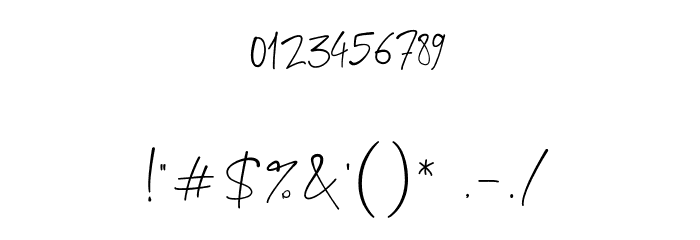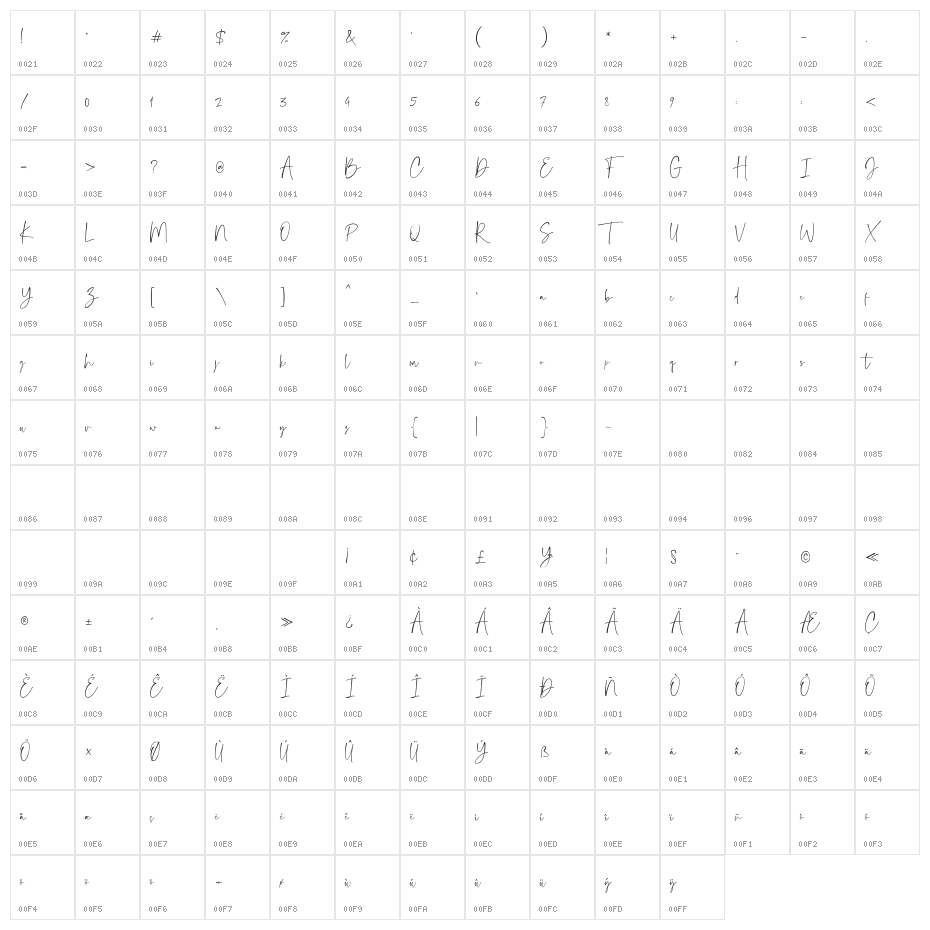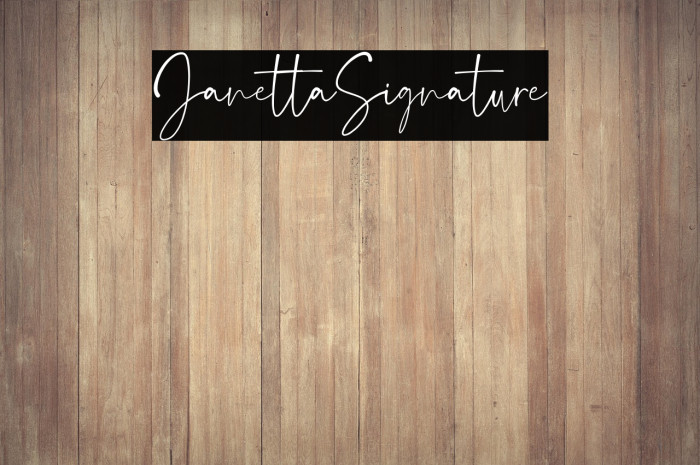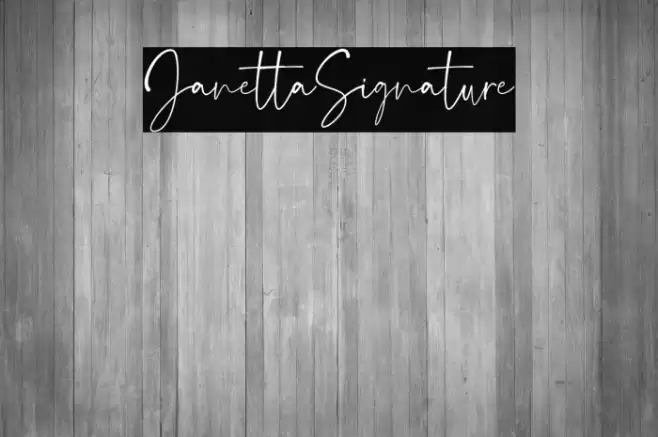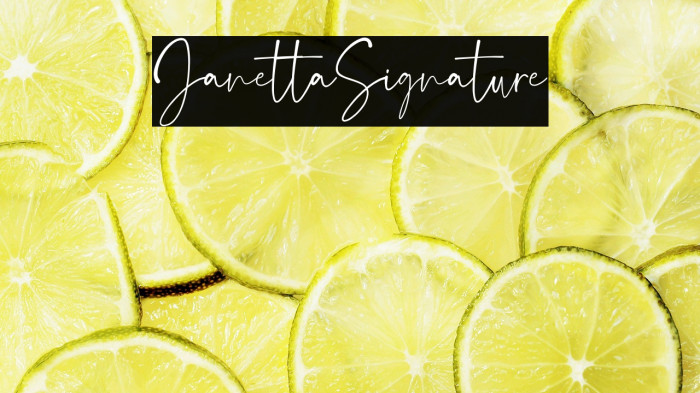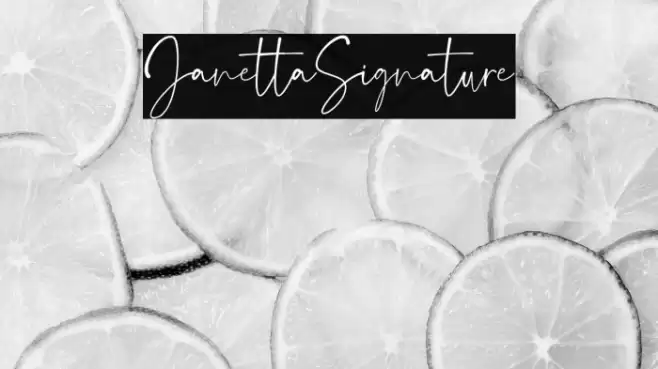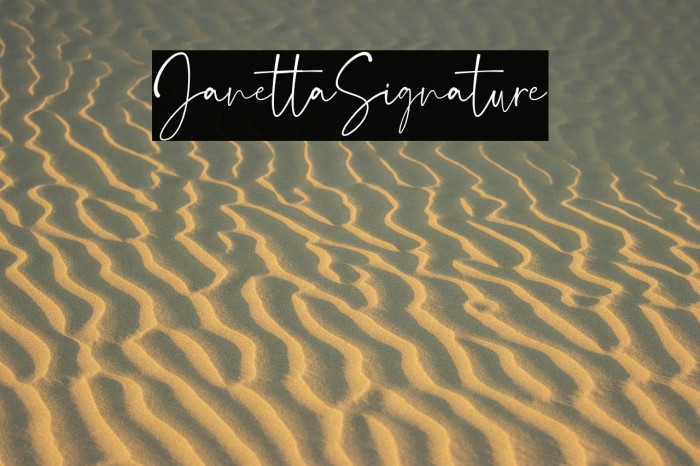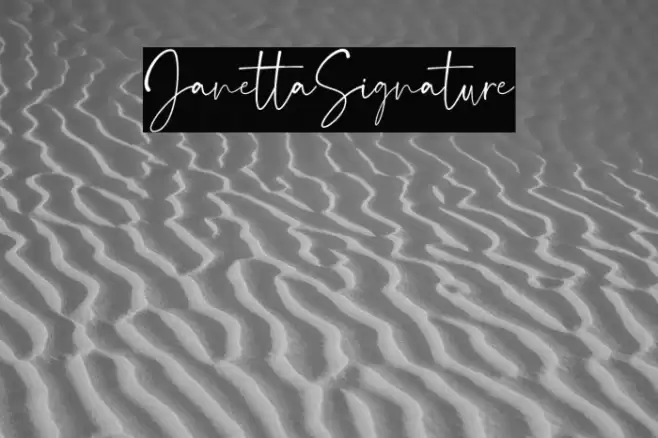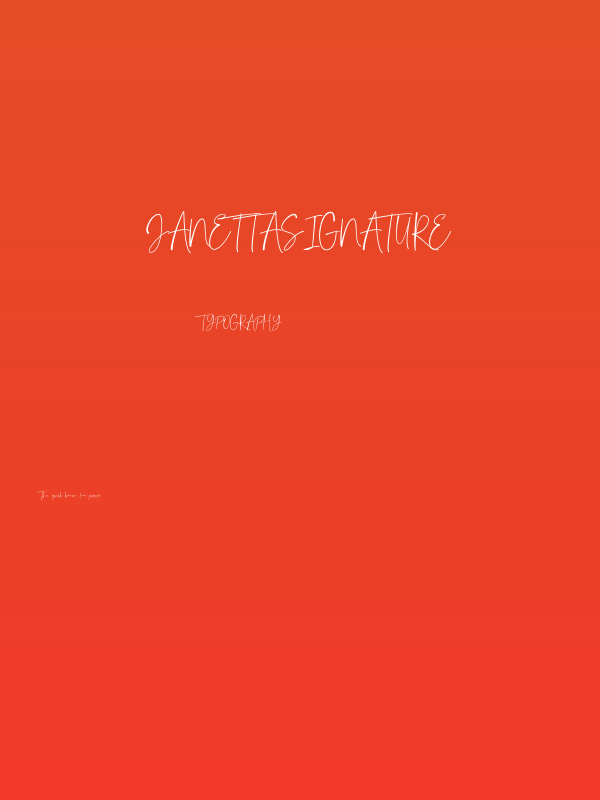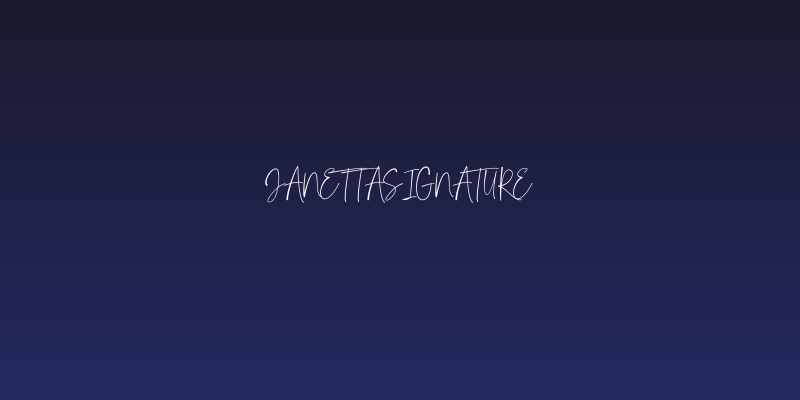
JanettaSignature Font
JanettaSignature Description
This font exudes a casual elegance with its flowing, handwritten style. The characters are crafted with a natural, organic feel, featuring smooth curves and varying stroke widths that mimic the fluidity of real handwriting. The uppercase letters are bold and expressive, while the lowercase letters maintain a more delicate appearance, creating a harmonious balance. Numbers and special characters are designed to complement the overall aesthetic, maintaining the same handwritten charm. This font is perfect for projects that require a personal touch, such as invitations, greeting cards, or branding materials.
| Overall Style | Casual, Elegant |
| Proposed Projects | Ideal for invitations, greeting cards, branding, and personal projects. |